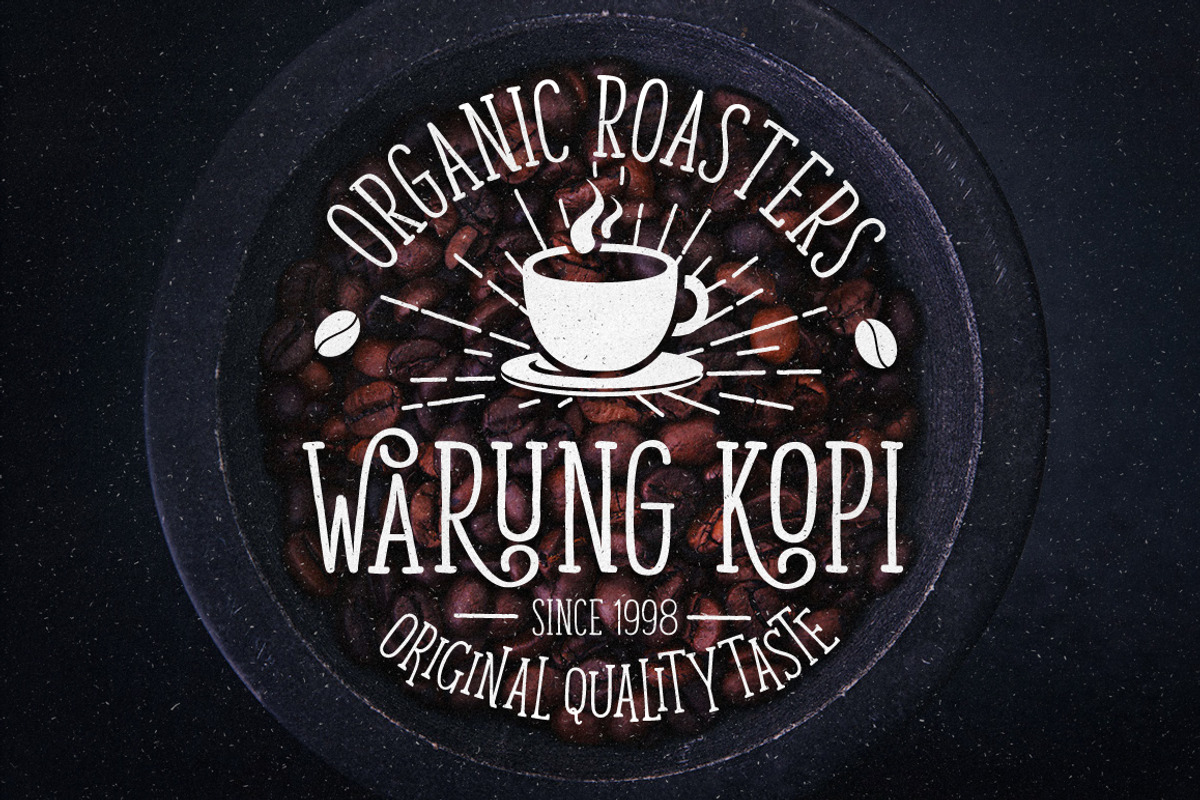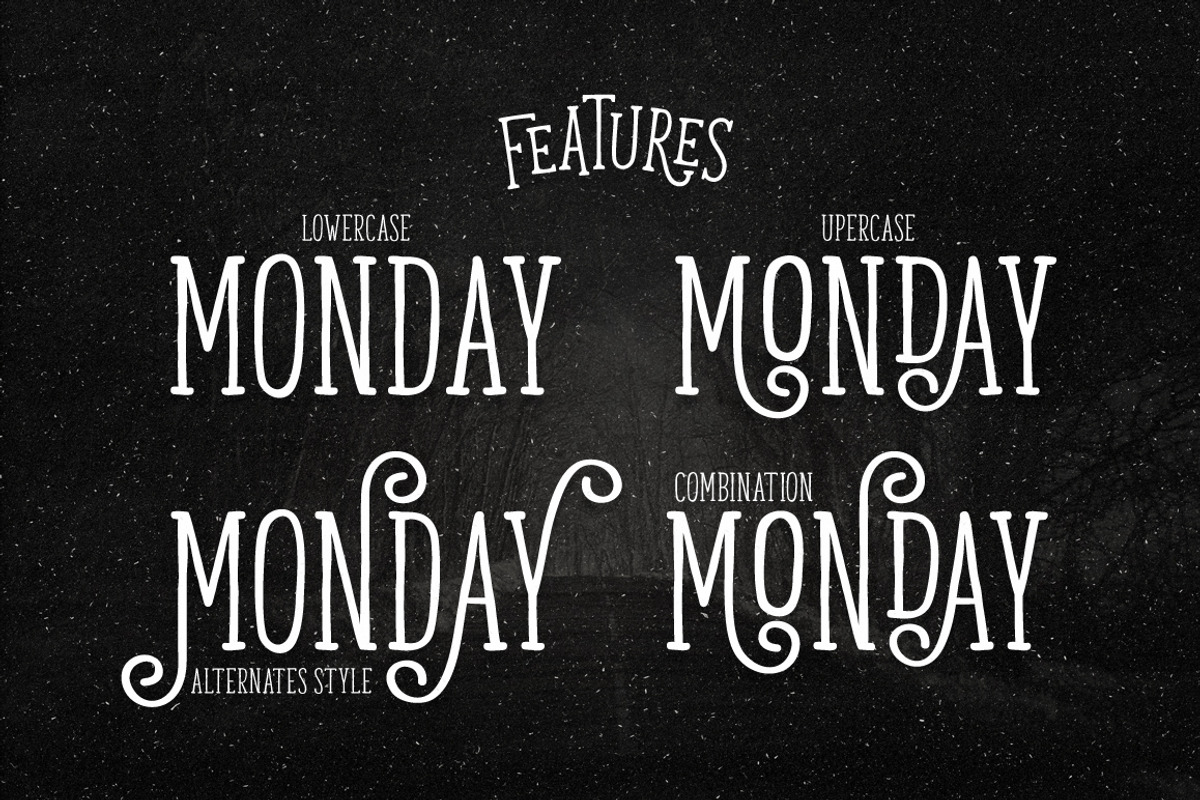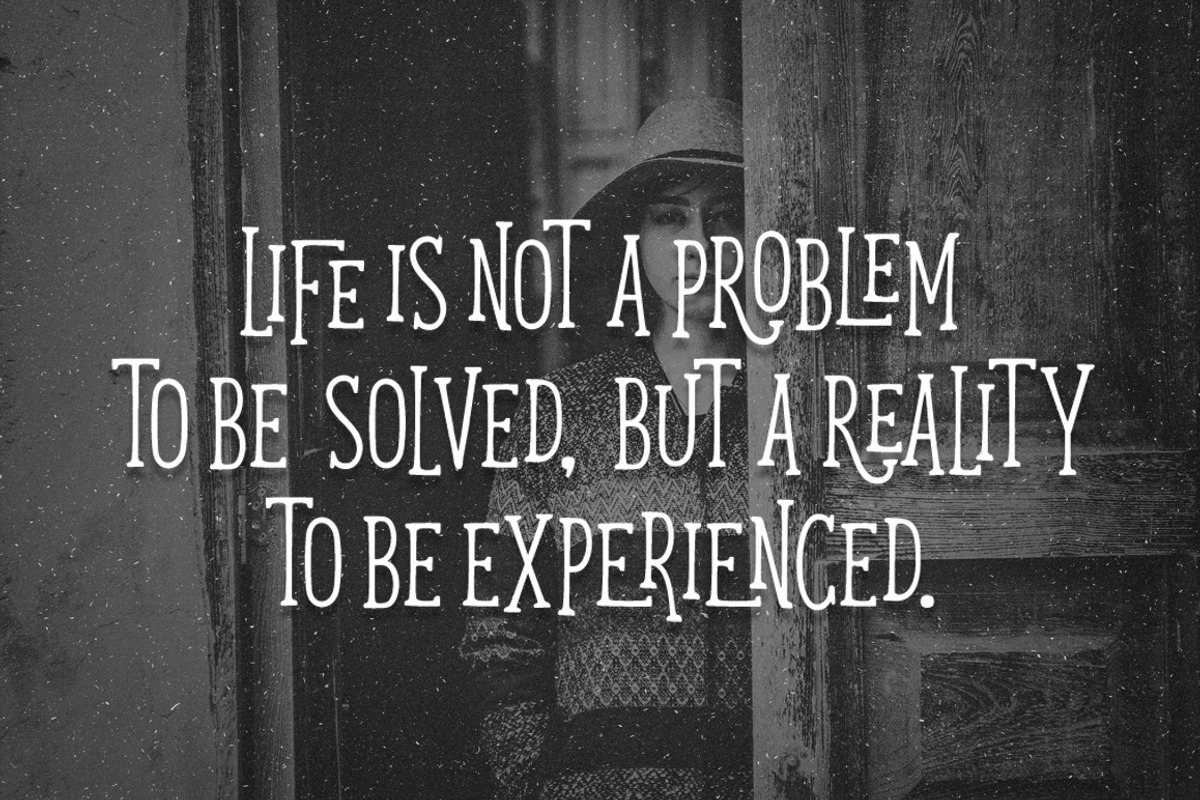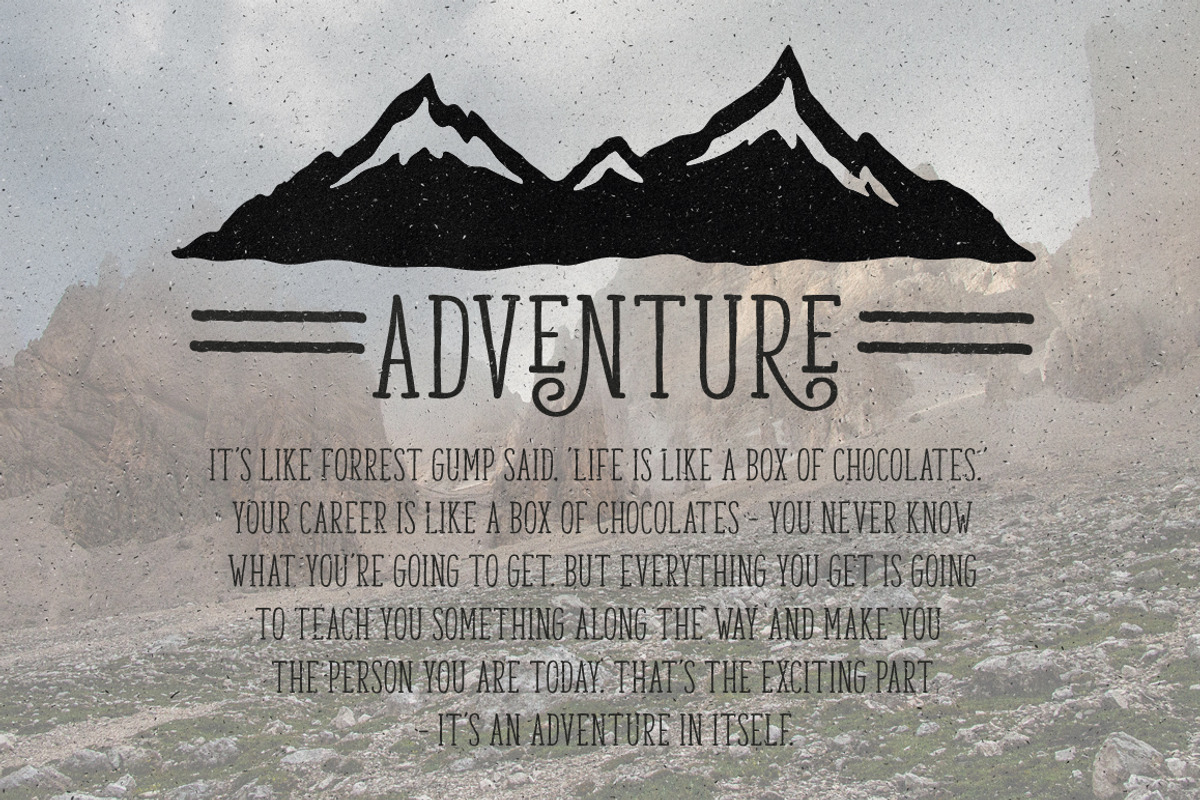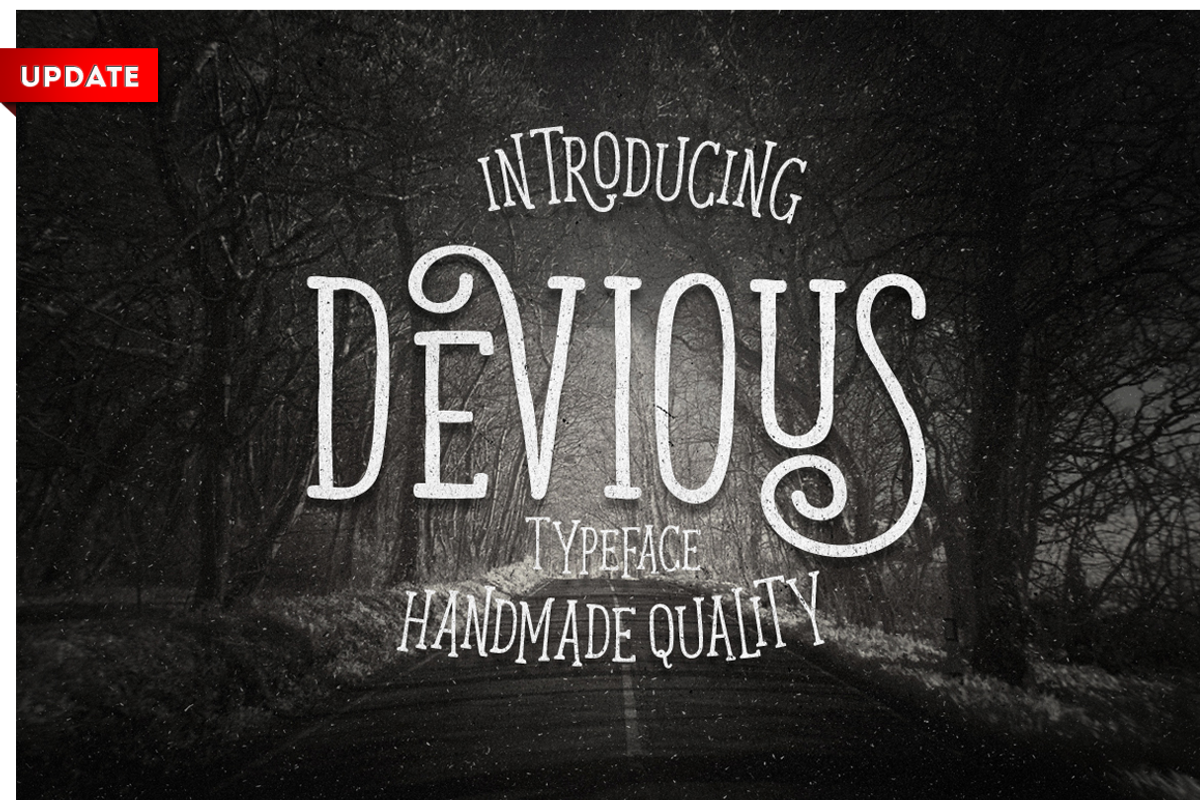
Devious Typeface
Devious Typeface is new font from Graptail, the font with simple, minimalistic, retro and vintage feel character set.
Devious font comes up with The alternative characters which can be accessed by using OpenType savvy programs such as Adobe Illustrator and Adobe InDesign.